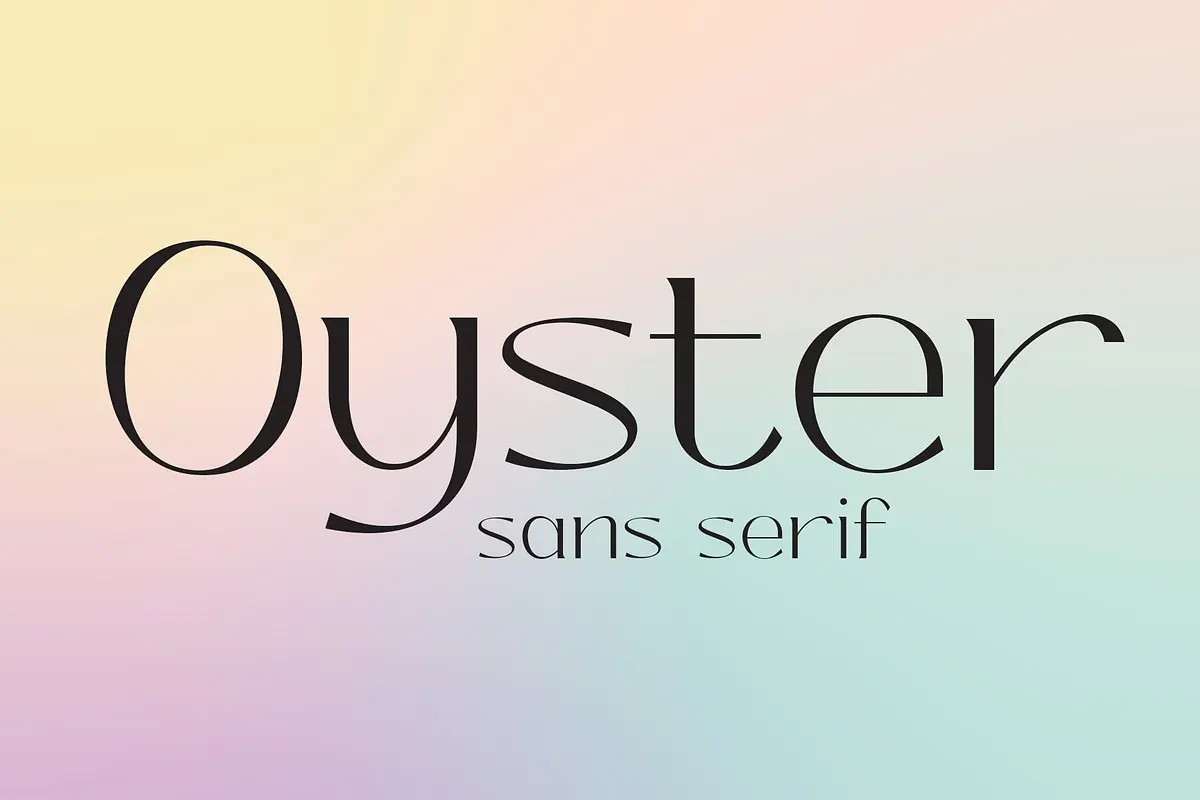
Oyster - Elegant Sans Serif Font Free Download is a sleek and modern typeface that combines minimalist style with high-end sophistication. Featuring clean lines, soft curves, and refined spacing, Oyster is perfect for fashion branding, editorial layouts, portfolios, product packaging, social media content, and luxury logos.
Its elegant simplicity allows it to shine in both large headings and refined body text, making it a versatile choice for designers who want to maintain a polished and contemporary aesthetic. Oyster works beautifully across print and digital platforms, ensuring your message looks crisp and timeless.